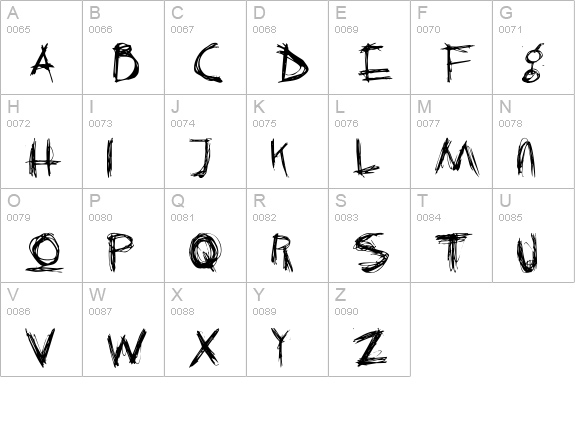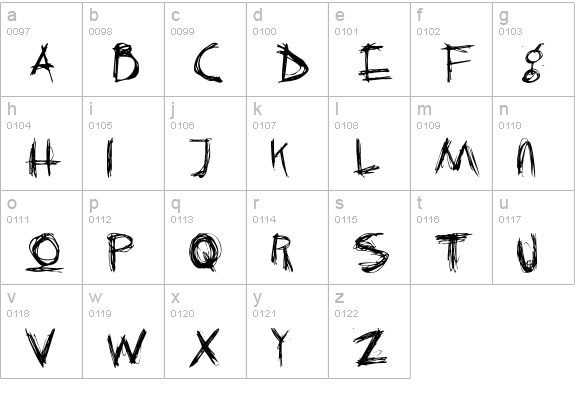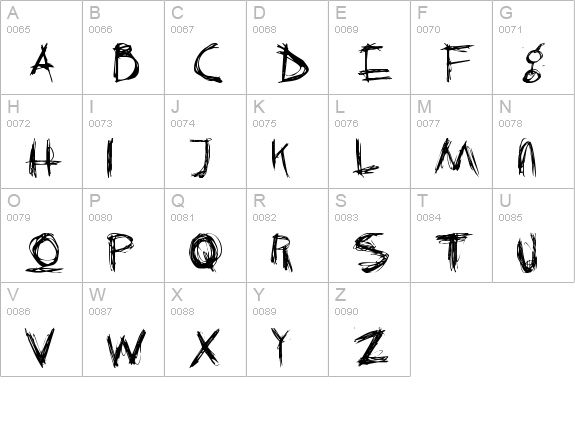
Crazy Killer Font Details
Introducing Crazy Killer font, a bold and edgy typeface that is sure to make a statement in any design project. With its sharp angles and menacing appearance, this font exudes a sense of danger and excitement. Perfect for adding a touch of rebelliousness to your creations, Crazy Killer font is a versatile choice for posters, album covers, and more. Best of all, Crazy Killer font is available for free download at FontsMarket.com. Whether you're a professional designer looking to add a unique touch to your work or a hobbyist looking to spice up your personal projects, this font is sure to impress. Don't miss out on the opportunity to add Crazy Killer font to your collection today!